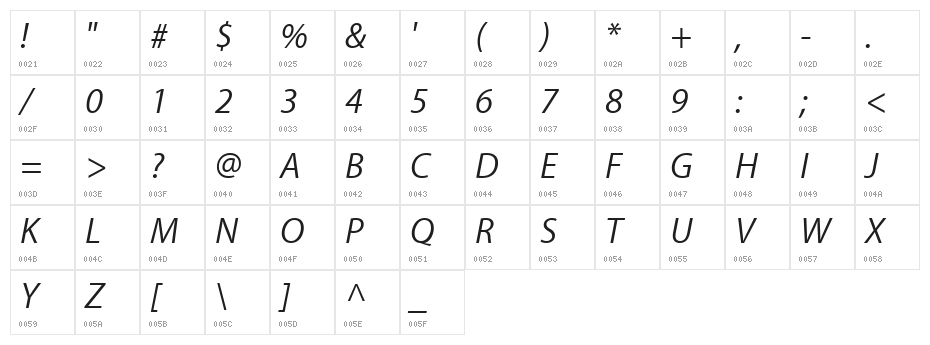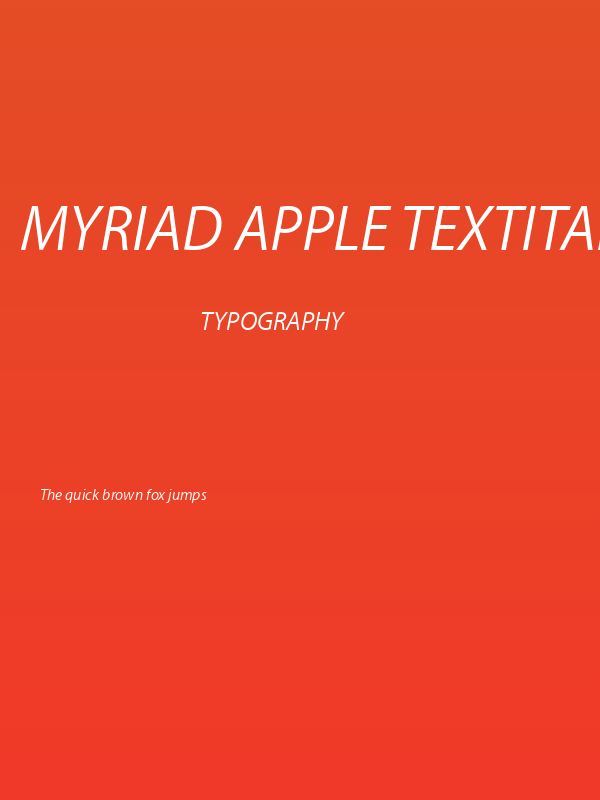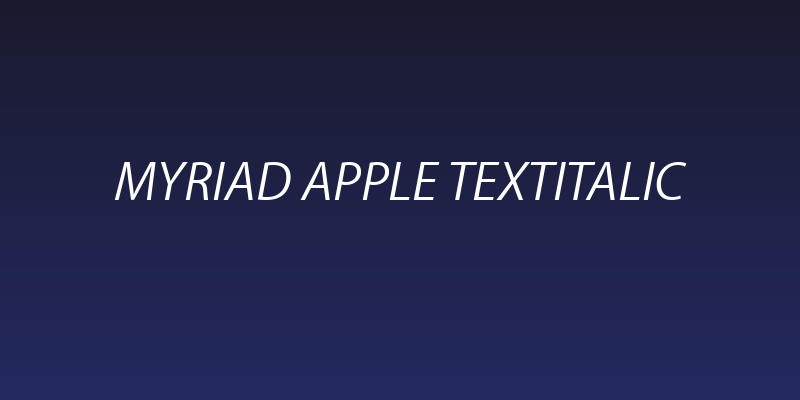
Myriad Apple TextItalic Font
Myriad Apple TextItalic Description
This font features a clean and modern sans-serif style with a slight italic slant, giving it a dynamic and elegant appearance. The characters are well-proportioned, with smooth curves and a consistent stroke width that enhances readability. The uppercase letters are bold and assertive, while the lowercase letters maintain a friendly and approachable feel. The numerals are clear and distinct, making them suitable for various applications. Special characters are included, providing versatility for different design needs. Overall, this font combines functionality with a touch of sophistication, making it suitable for both digital and print media.
| Proposed Projects | Ideal for branding, editorial design, websites, and advertising materials. |